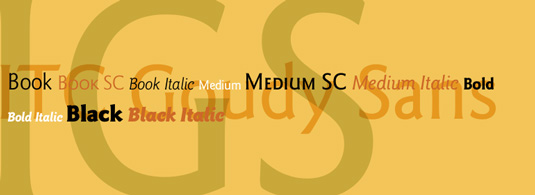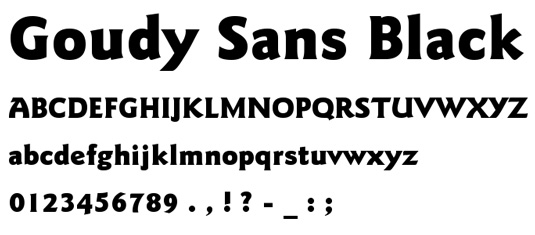
Font of the day: Goudy Sans Black BT
Goudy Sans Black BT by Frederic Goudy
Today's font of choice, Goudy Sans Black BT, is part of the sans serif font family Goudy Sans FS, by Frederic Goudy. The friendly, almost playful design, has an unusual and attractive cursive italic.
Available free of charge, this typeface comes complete with a full set of upper and lower case letters, numbers and a selection of special characters.